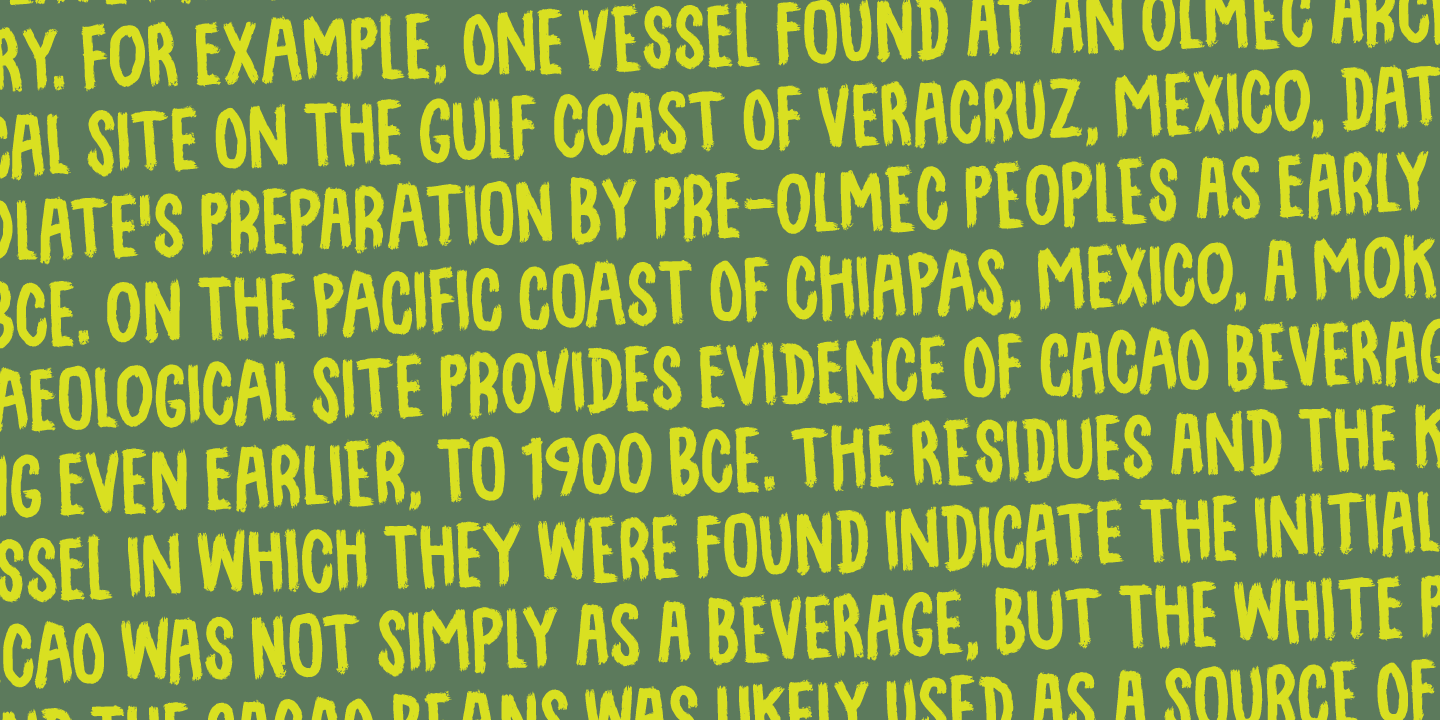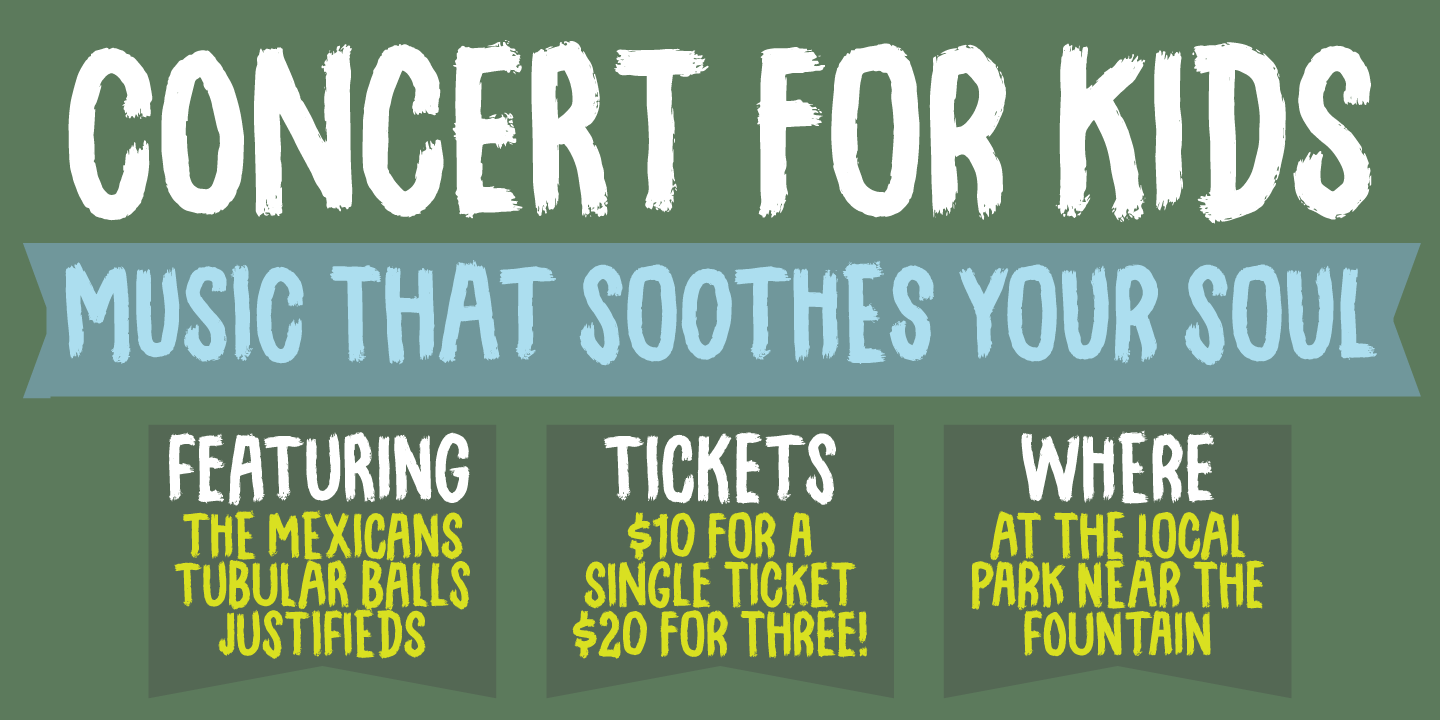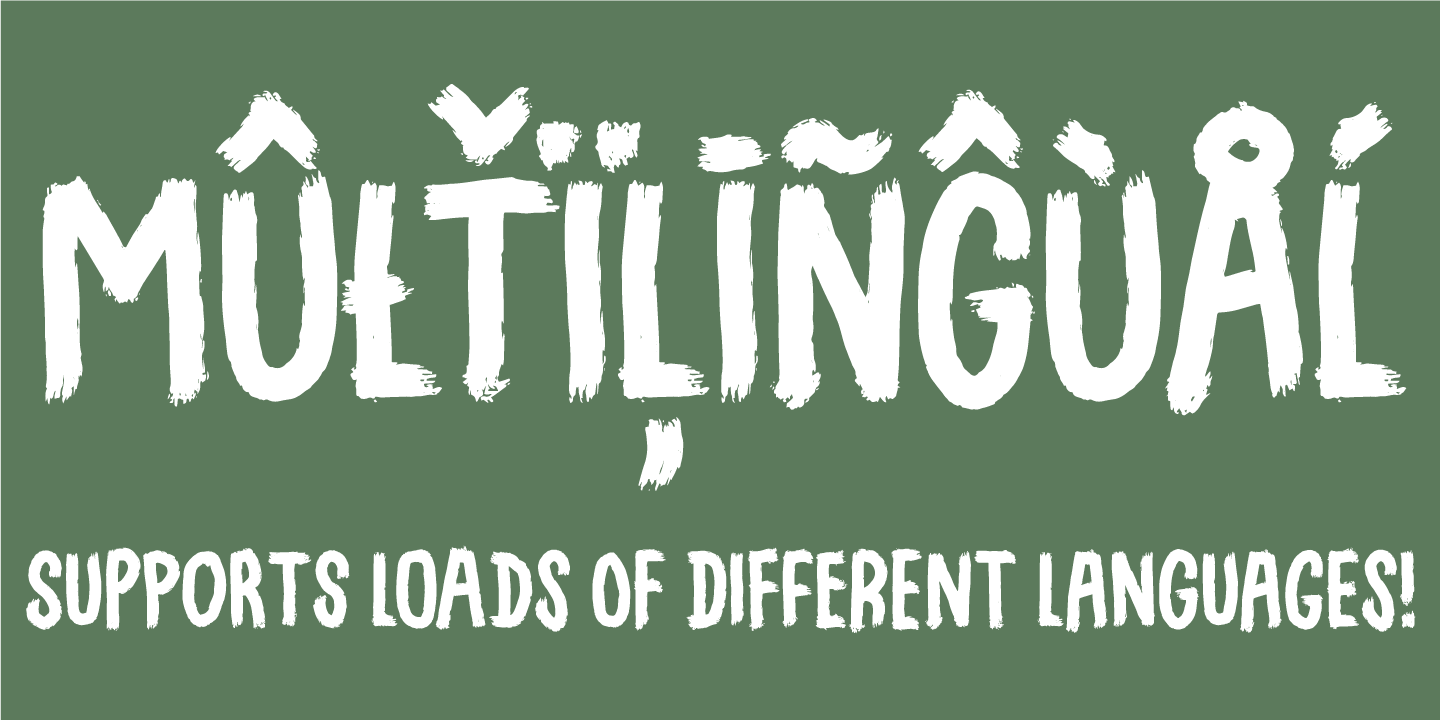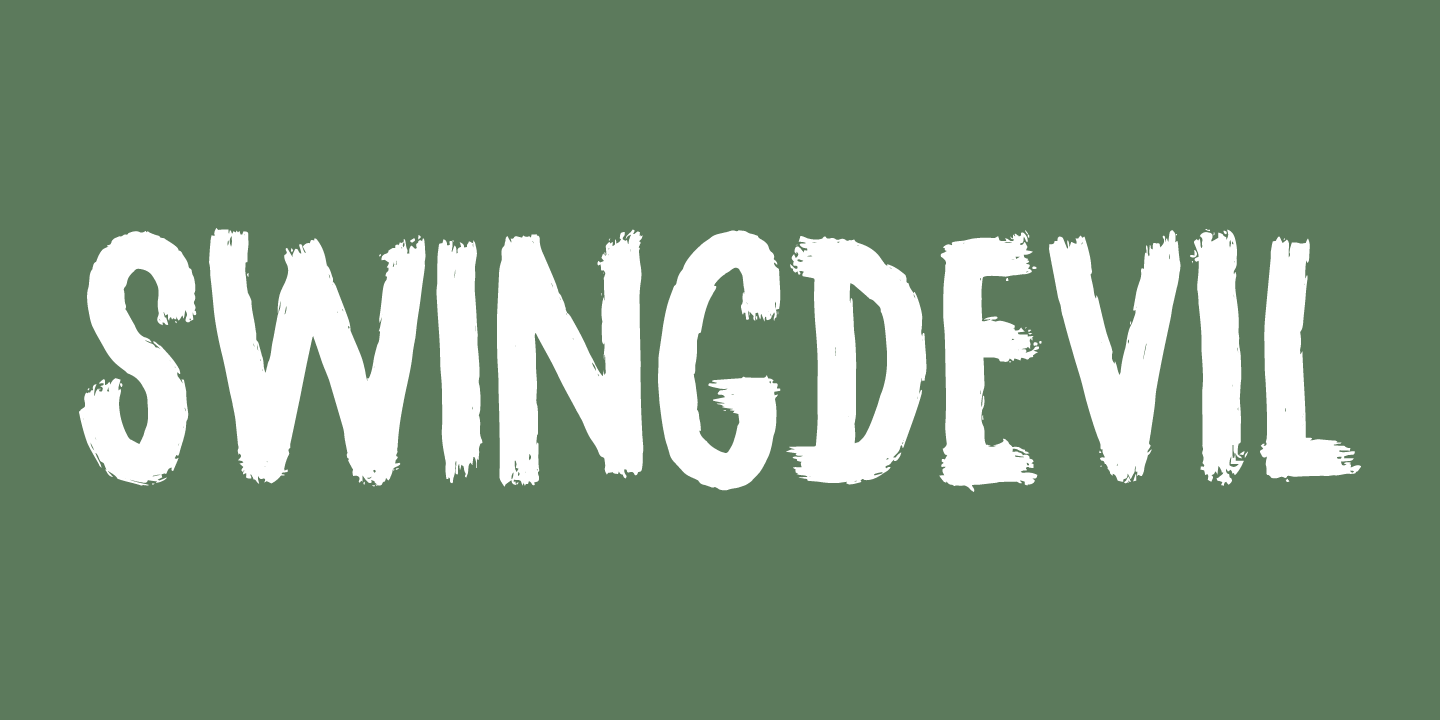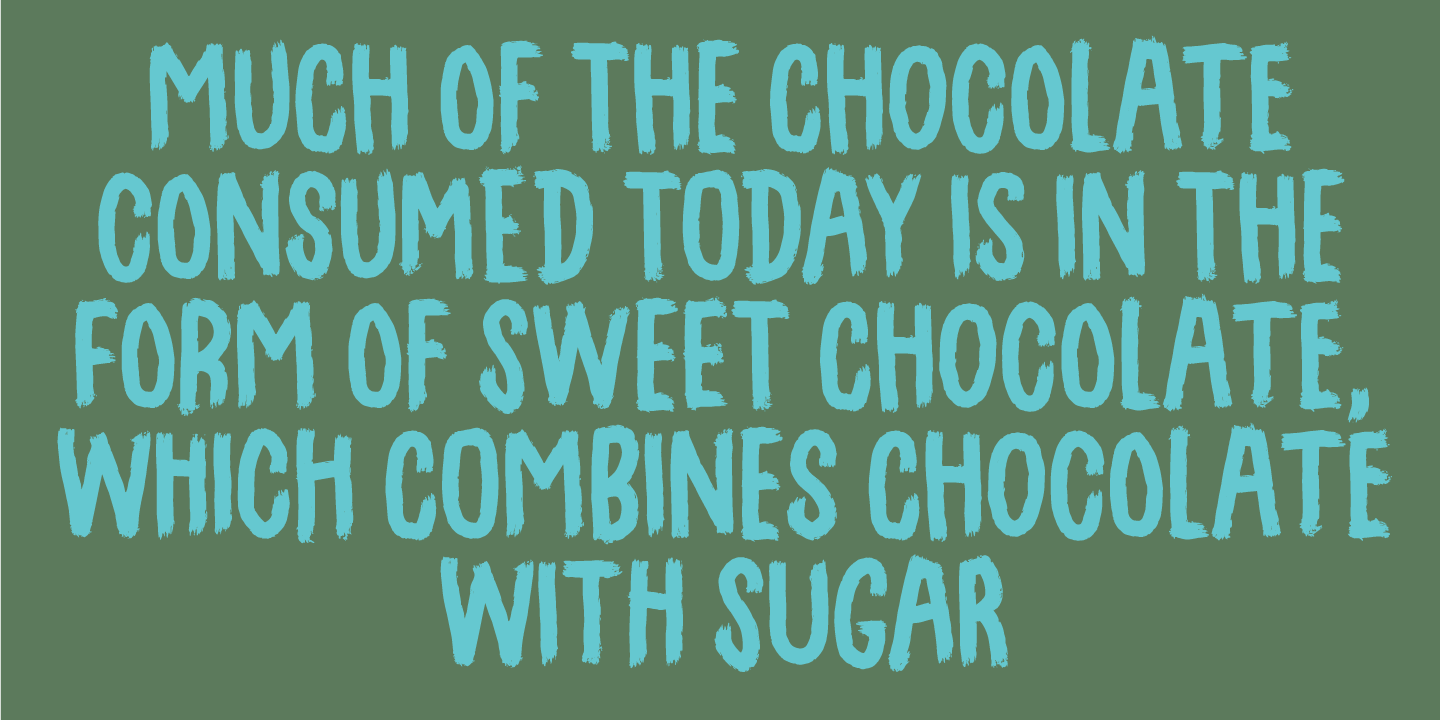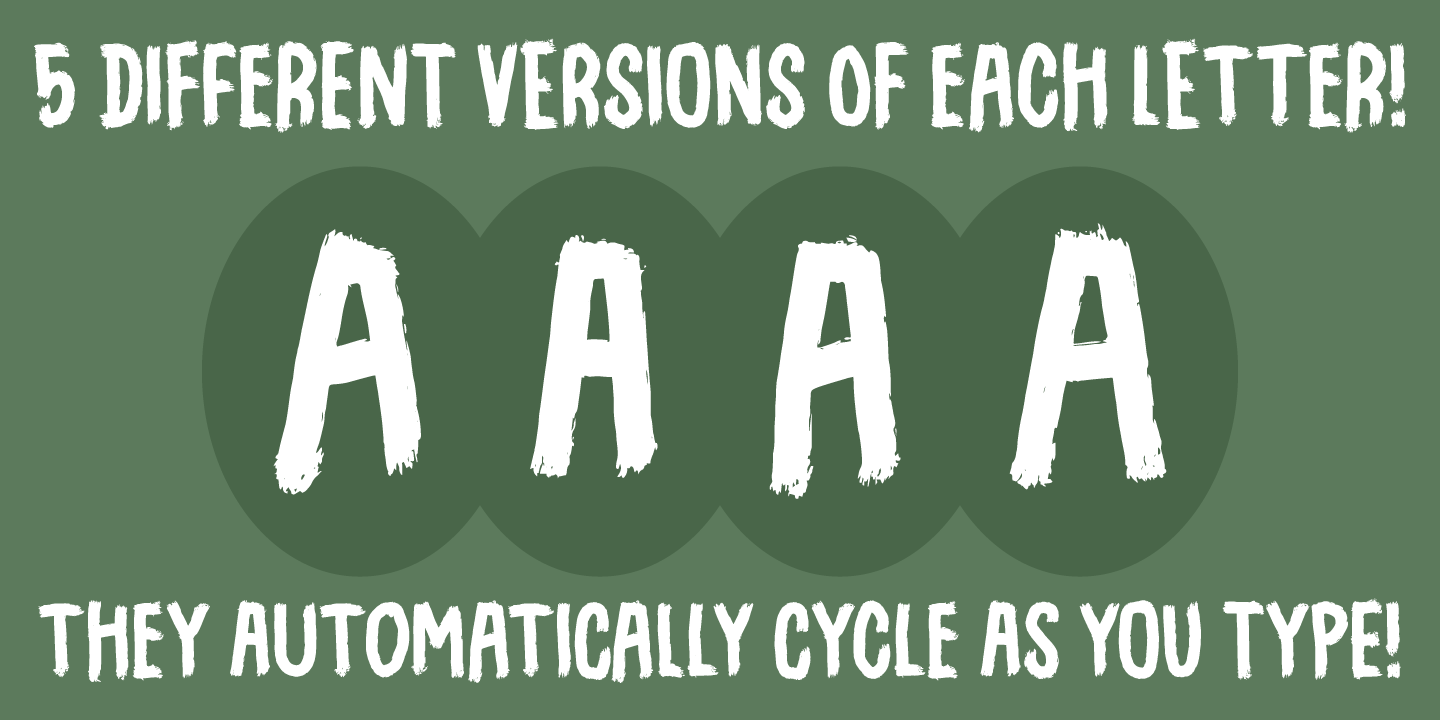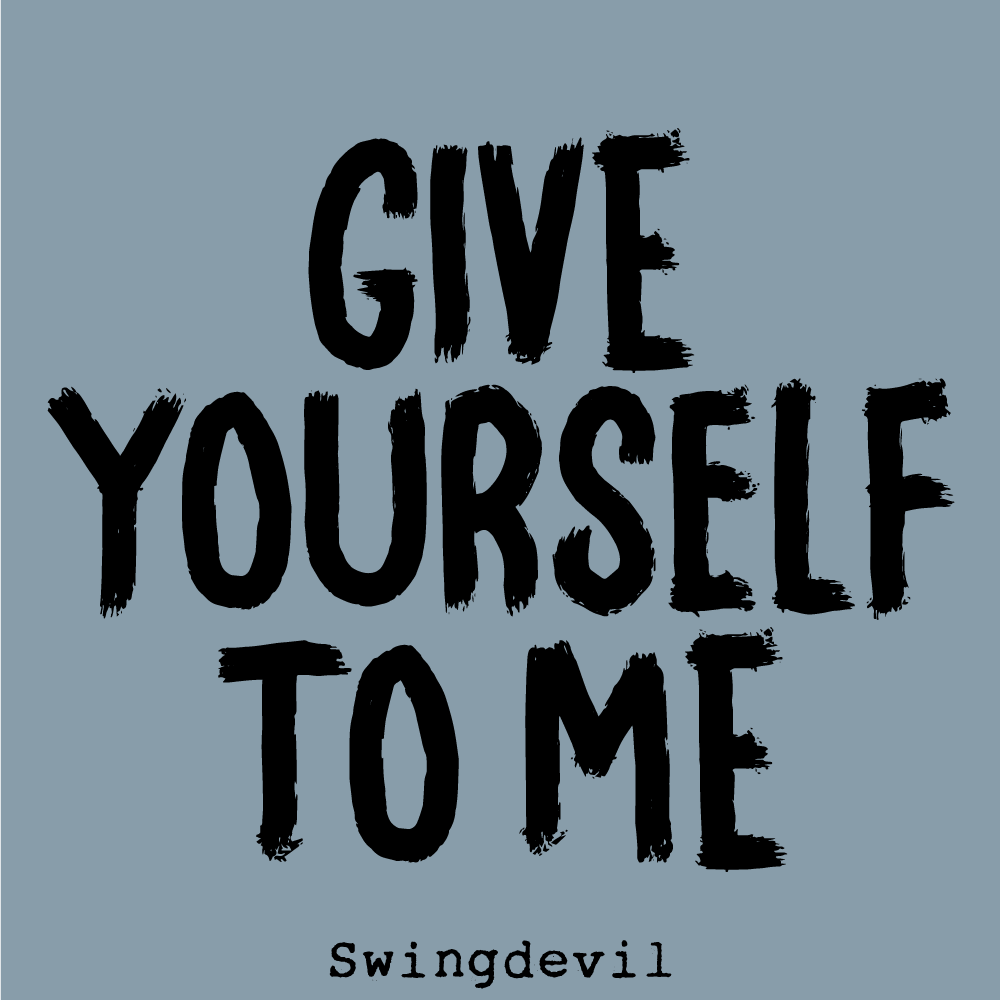
Swingdevil
Crunchy brush - perfect for mimicking an actual brush. Imagine your next poster with this font on it!
The font has multilingual support as well as contextual alternates!